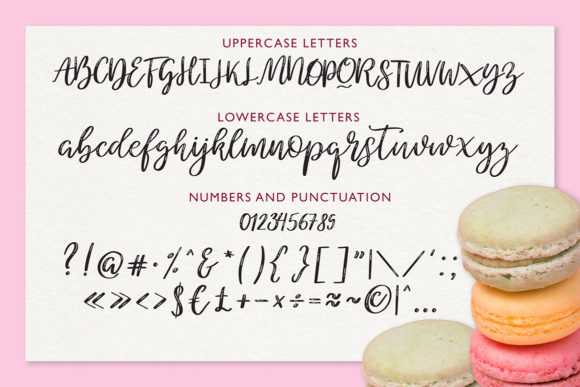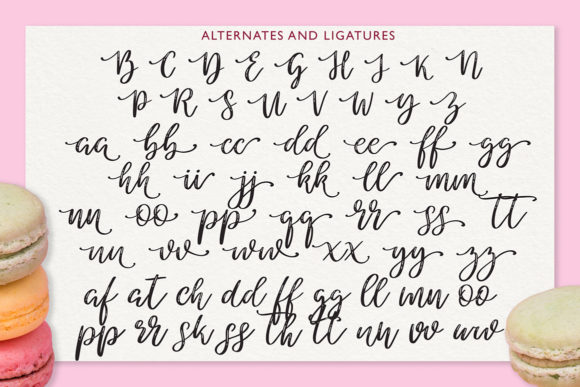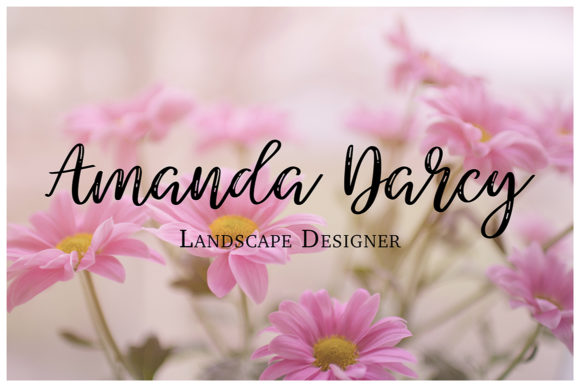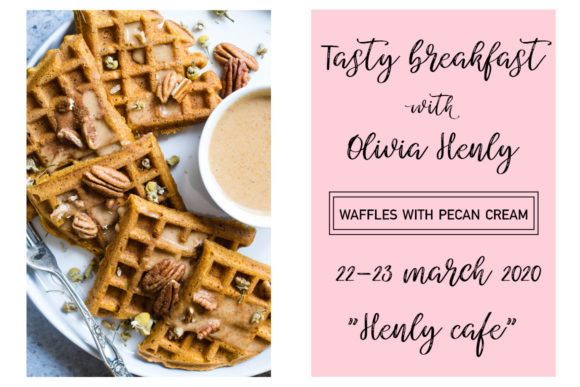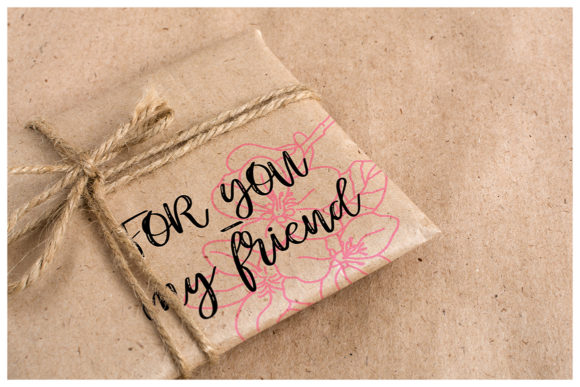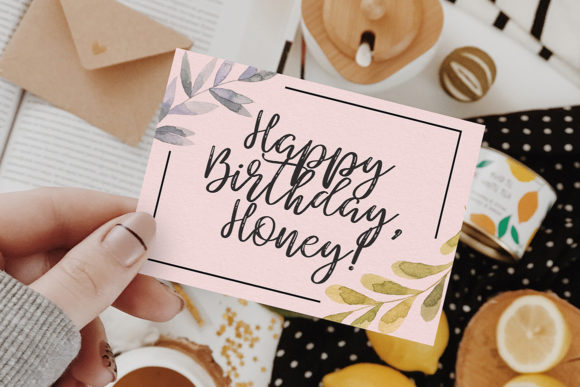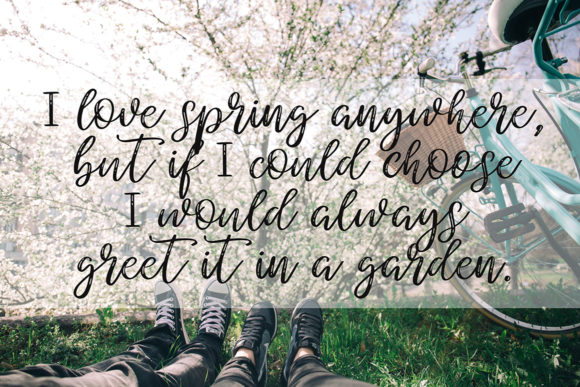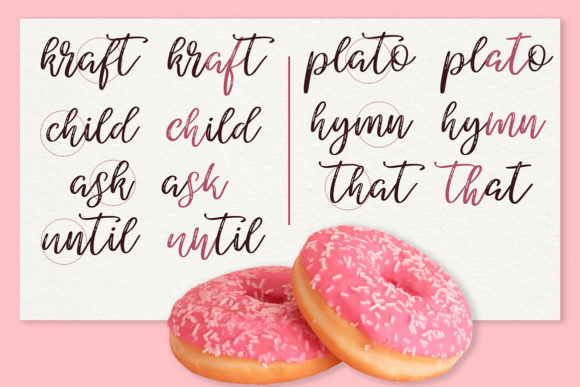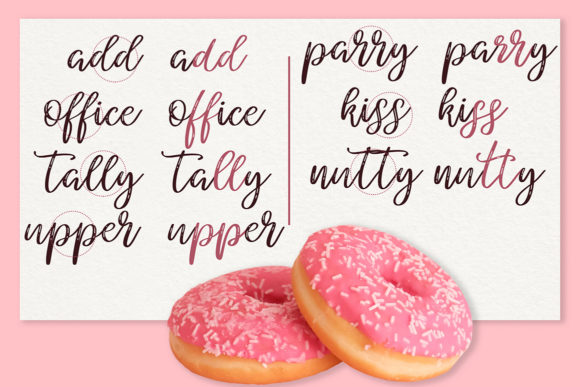
HomeScript FontsSpirullina Font Script Fonts Spirullina Font FacebookXPinterestWhatsApp Spirullina Font Poster 2 Spirullina Font Poster 3 Spirullina Font Poster 4 Spirullina Font Poster 5 Spirullina Font Poster 6 Spirullina Font Poster 7 Spirullina Font Poster 8 Spirullina Font Poster 9 Spirullina Font Poster 10 Spirullina Font Poster 11 About Spirullina Font Spirullina is a beautiful script font with a casual feel. It will perfectly embody any romantic idea! DOWNLOAD NOW People also explored White Unisex T-Shirt Mockup Photo Cholane Font Sport Torn Font Lost City Font Dallastown Font Alexandra Font Jampoot Font Red Guelder Rose Font Woody Font 428 0 TagsSpirullina Font Previous articleCorgy Puppy FontNext articleKerling Script Font LEAVE A REPLY Cancel reply Comment: Please enter your comment! Name:* Please enter your name here Email:* You have entered an incorrect email address! Please enter your email address here Website: Save my name, email, and website in this browser for the next time I comment. Personal Use Free Solaria Personal Use Free Read more about this font Evensong Hollow Personal Use Free Read more about this font Knucklehead Personal Use Free Read more about this font The Royal Personal Use Free Read more about this font BLOG Elegant Wedding Invitation Fonts – Handwritten & Script Fonts Elegant Wedding Invitation Fonts Your wedding day is one of the most important moments of your life, and every detail matters—including your invitation design. Our... To increase your work productivity, choose the most readable fonts. The 10 Best Handwriting Fonts to Add Personality to Your Designs Transform Your Website: Elevate Your Typography with 7 Best Web Font Generators